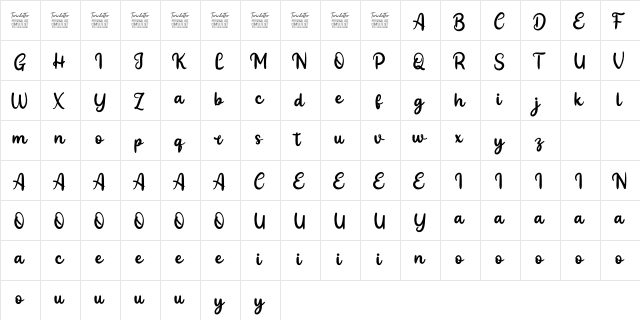
Penyet Personal Use
Design Context for Penyet Typeface
Penyet is a composed and adaptable typeface that performs quietly and consistently across a wide range of design contexts.